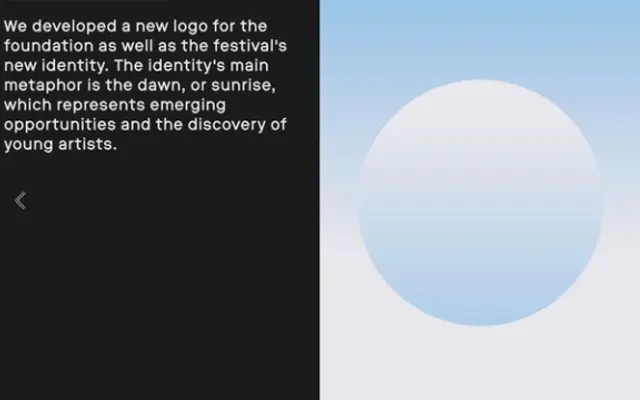
Bitum
Brownfox · Stella Kucher
A six-weight grotesque by Stella Kucher covering Latin and Cyrillic across 72 languages, with matching italics throughout.
Designed by Stella Kucher, Bitum is a straightforward grotesque sans running from Light to Bold with italic cuts at each weight. Its dual-script Latin and Cyrillic coverage across 72 languages makes it practical for multilingual publishing and branding projects. The specimen copy leans on technical and regulatory texts, suggesting the family suits dense, information-heavy settings as readily as display use.
Bitum presents as a contemporary grotesque sans-serif with a range of weights and italics, covering Latin and Cyrillic scripts with the neutral, functional character typical of the grotesque subcategory.